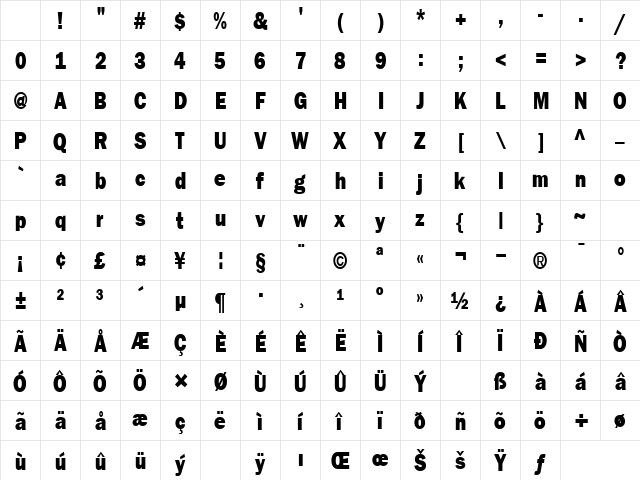
Complete PericycleCondBlack Normal glyph index. Displaying only characters natively supported by PericycleCondBlack Normal font.
PericycleCondBlack is a composed and adaptable typeface that performs quietly and consistently across a wide range of design contexts. Its narrow stance lets it pack a punch even in space-constrained designs.